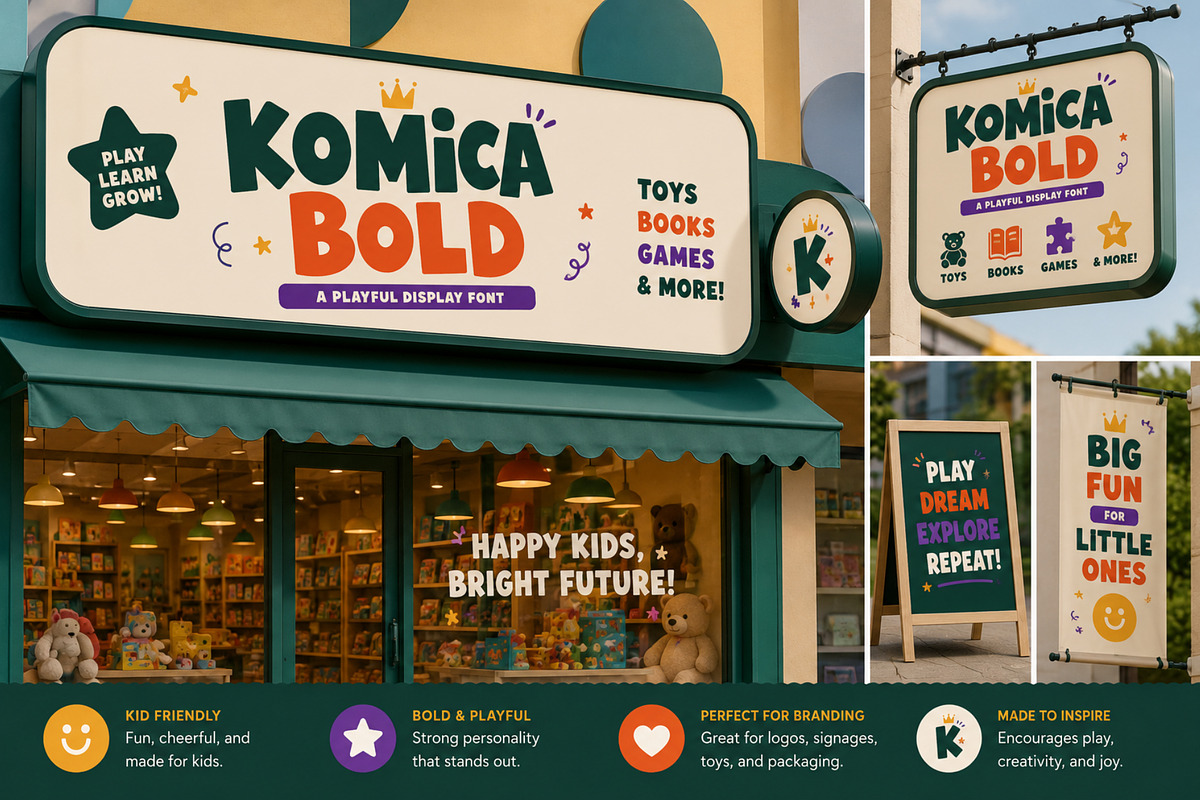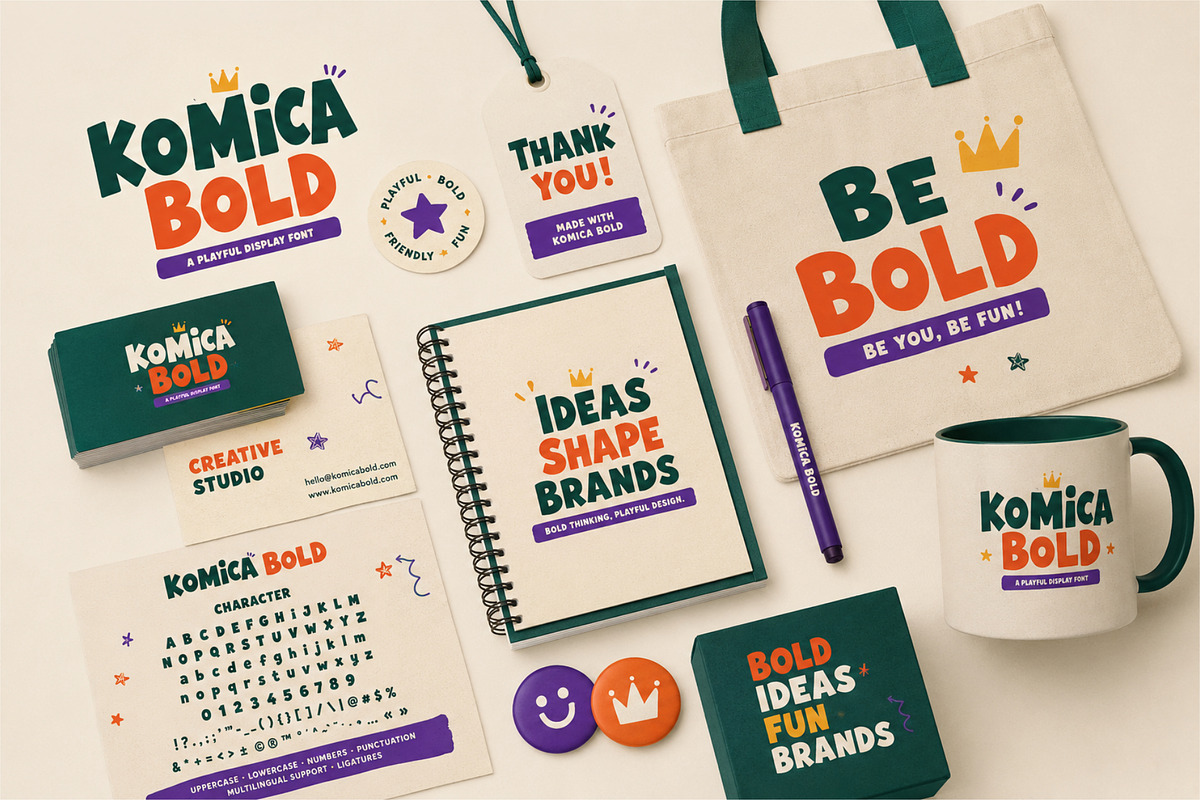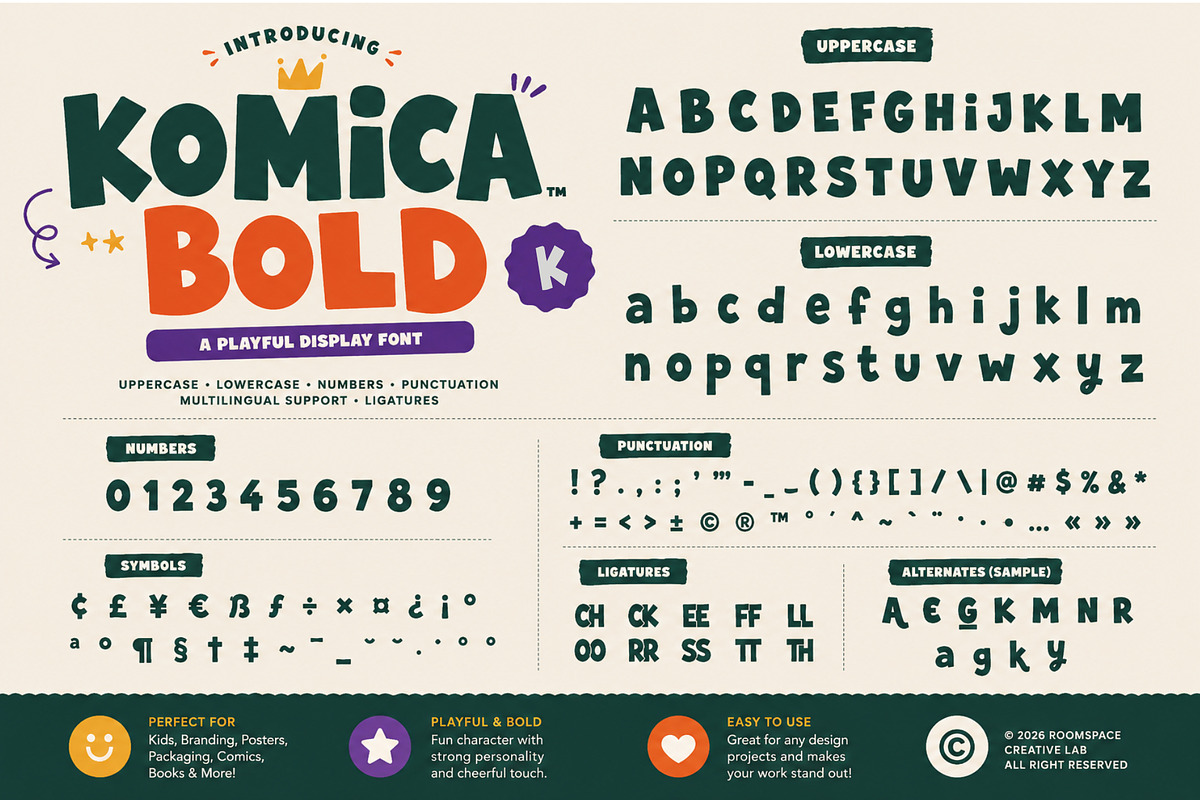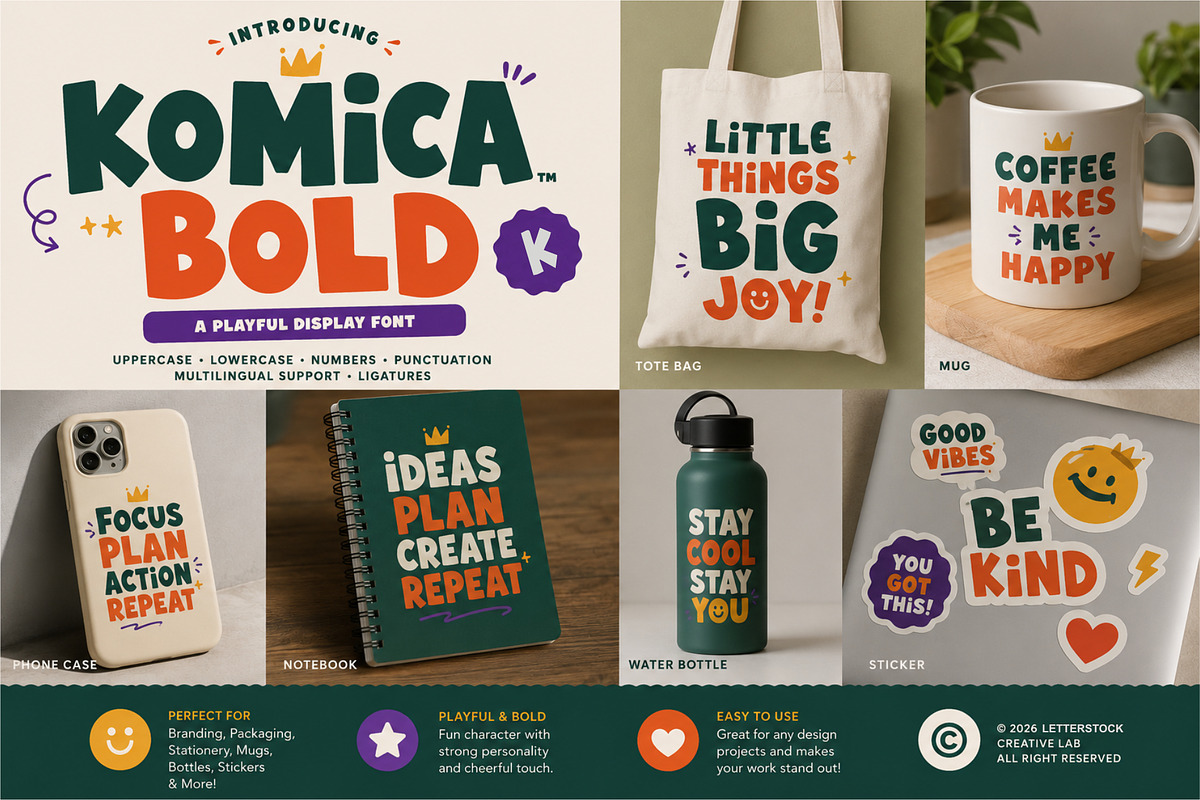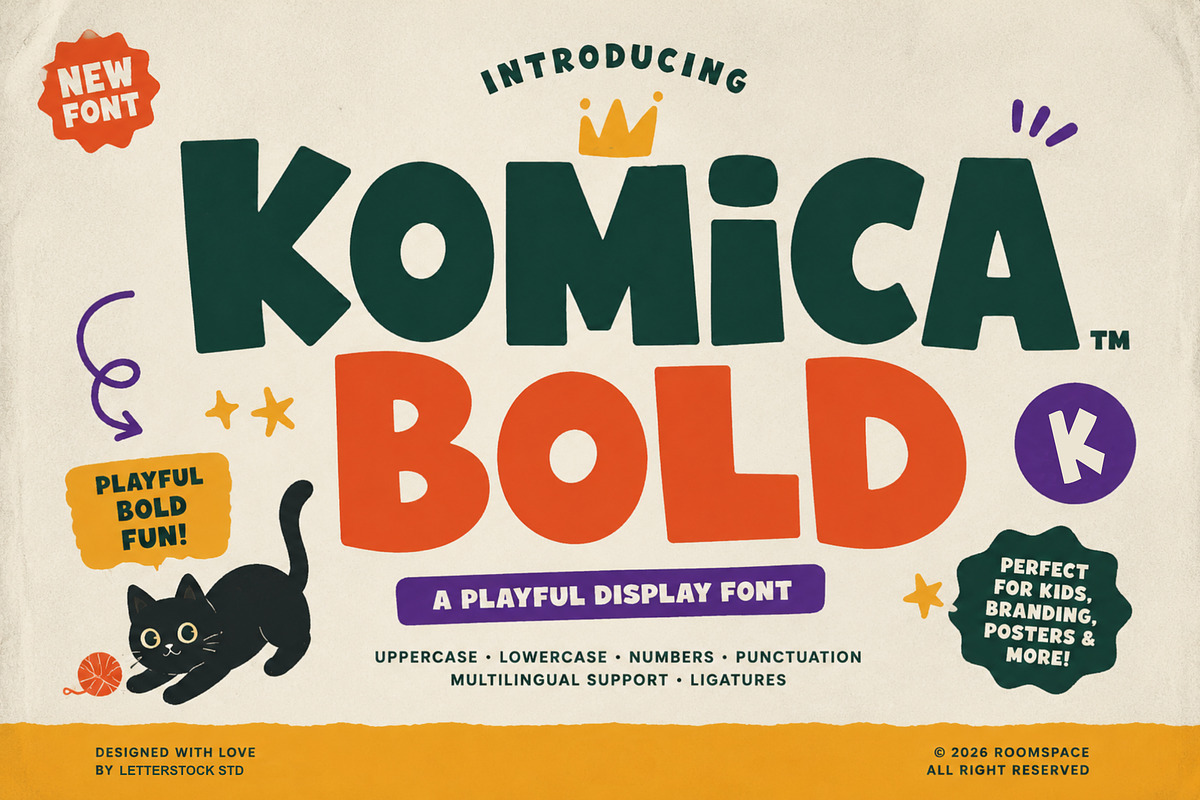
Komica - Decorative Font
Introducing Komica Bold — A Playful Display Font
Bring fun, creativity, and bold personality to your next project with Komica Bold. Featuring chunky shapes, rounded edges, and a cheerful handcrafted feel, this font is designed to make every word pop.
Ideal for:
Kids Branding
Toy Store Signage
Educational Materials
Social Media Content
Posters & Flyers
Event Promotions
Logos & Visual Identities
Game Graphics
Comic-Inspired Designs
✓ Uppercase & Lowercase
✓ Numbers & Symbols
✓ Multilingual Support
✓ Alternates Characters
✓ Ligatures
Create bold, happy, and memorable designs with Komica Bold — the perfect font for projects that want to inspire fun and creativity.